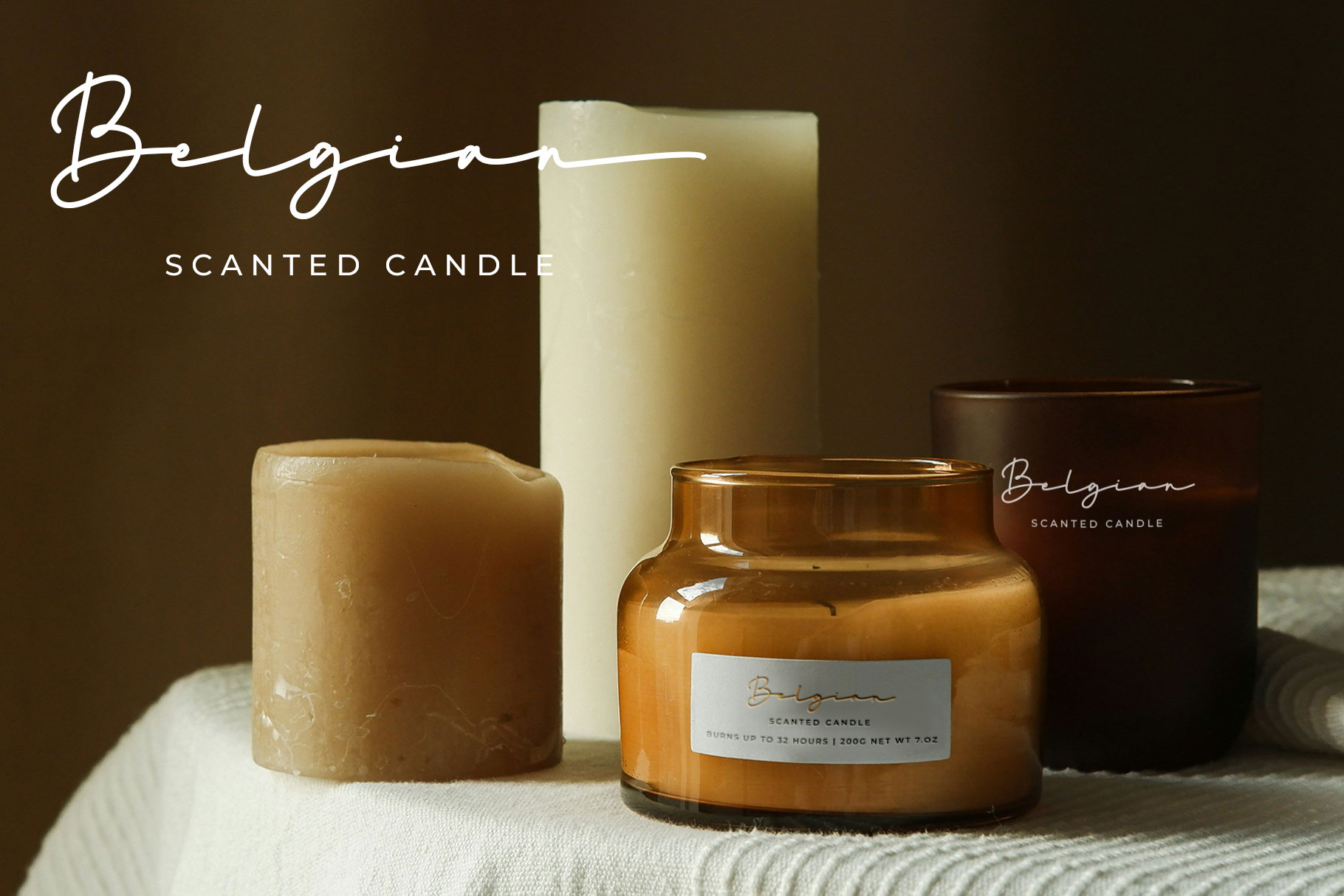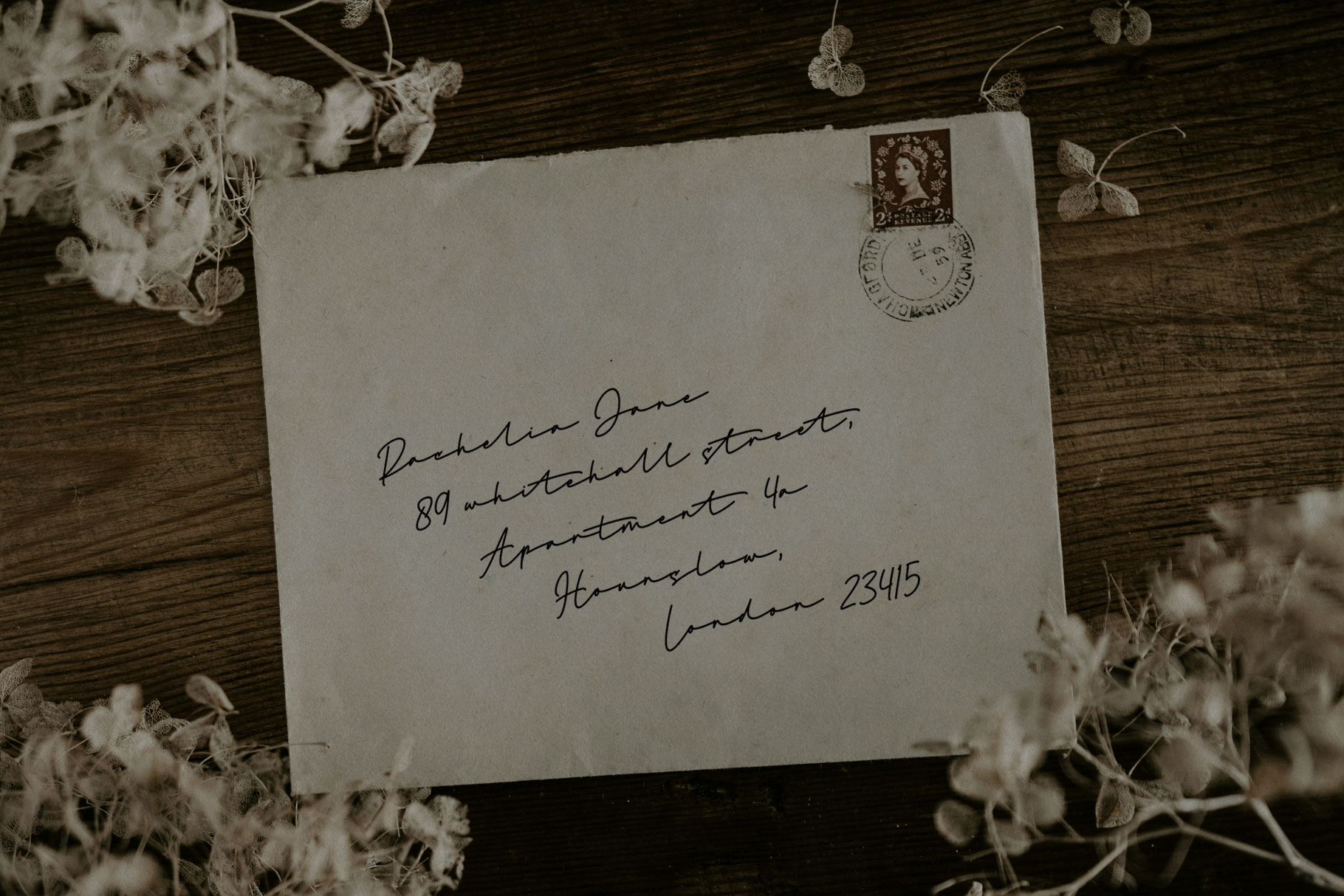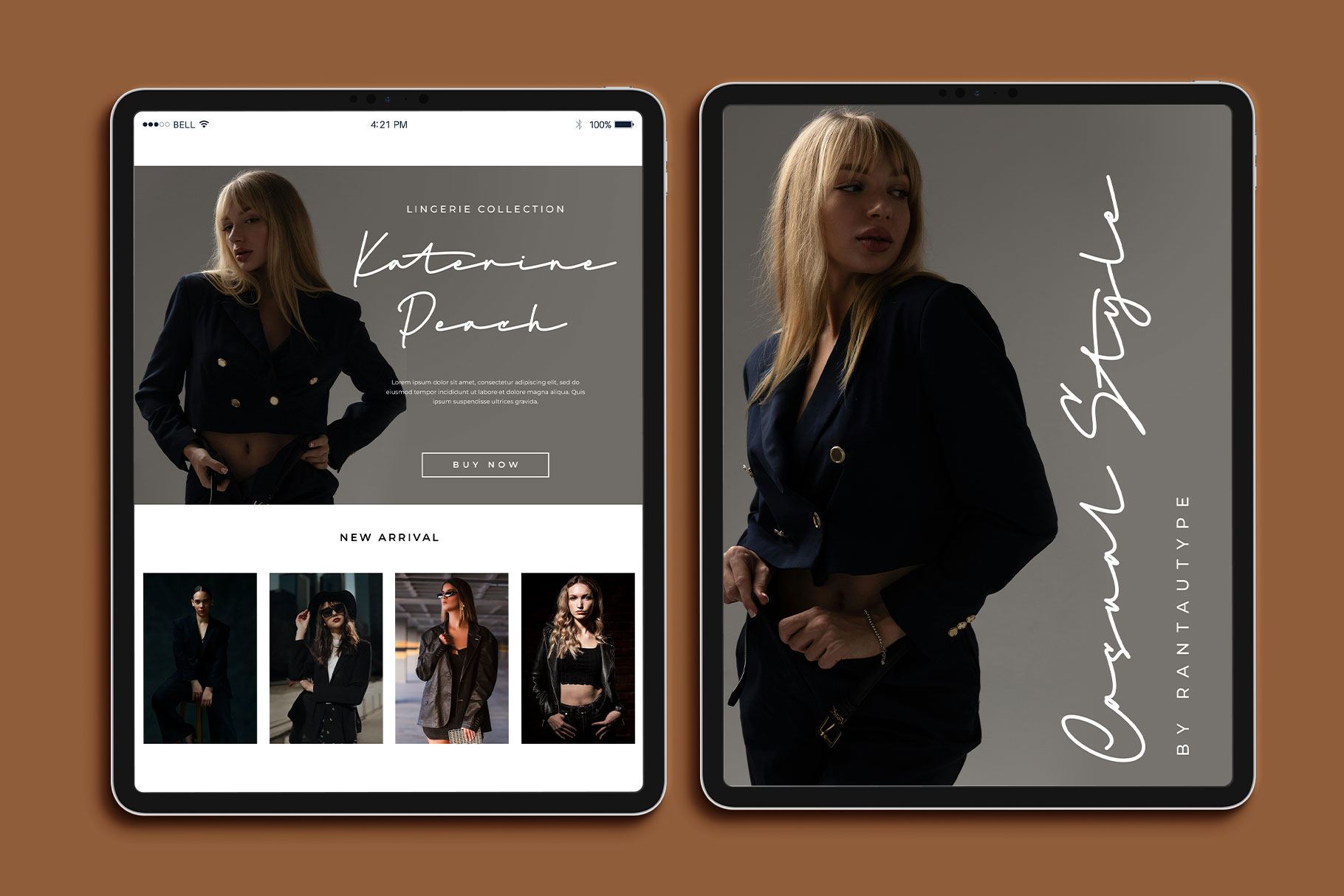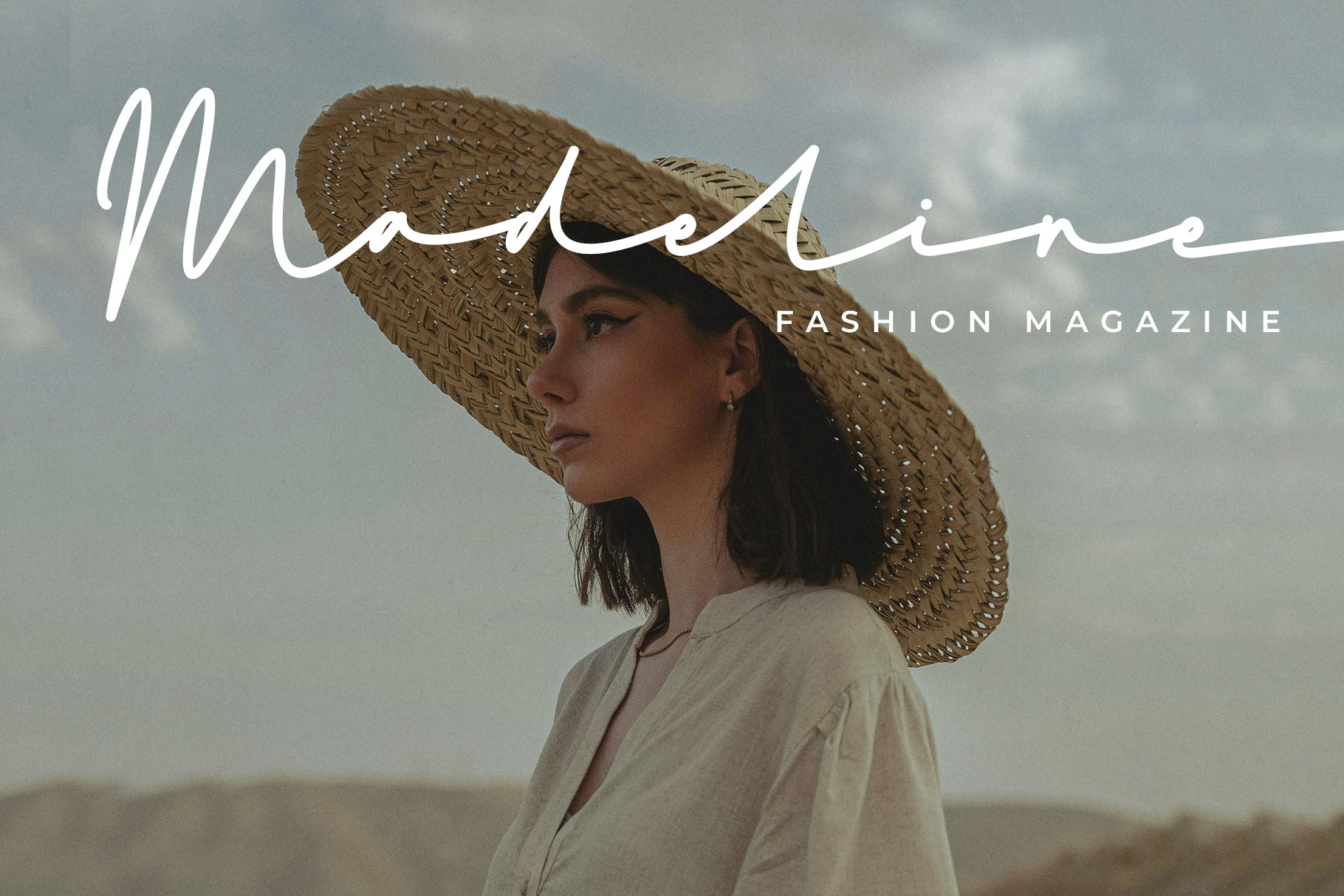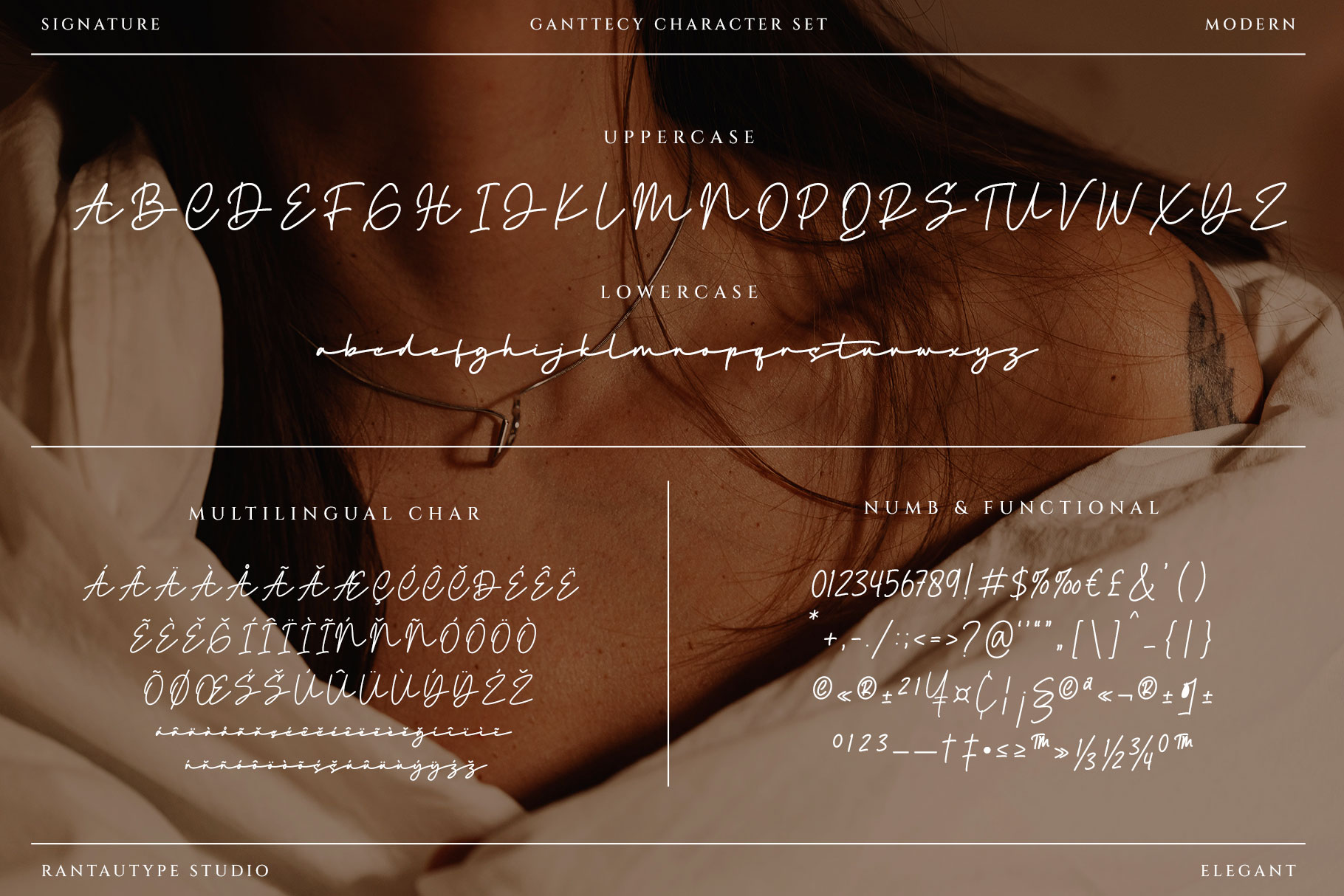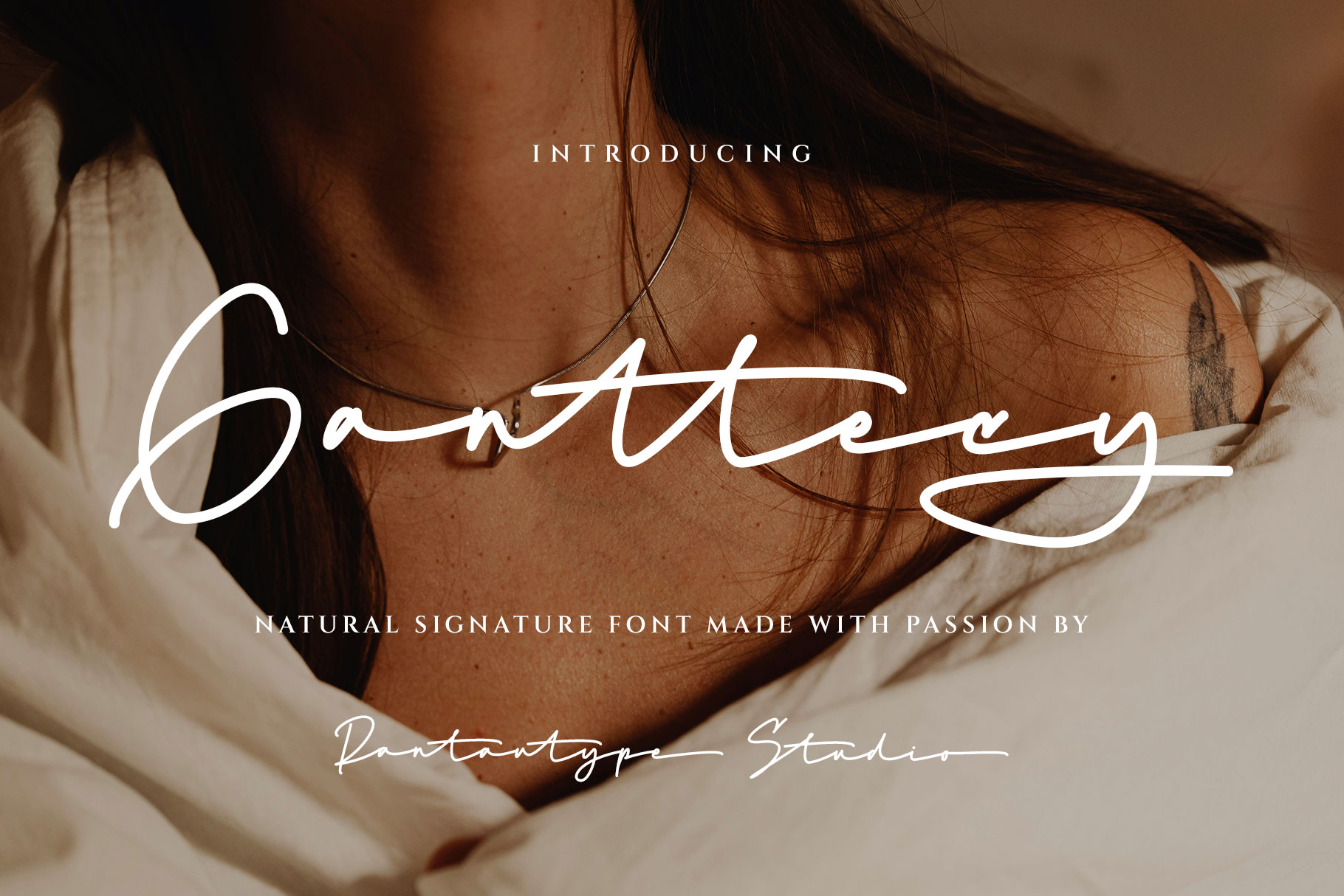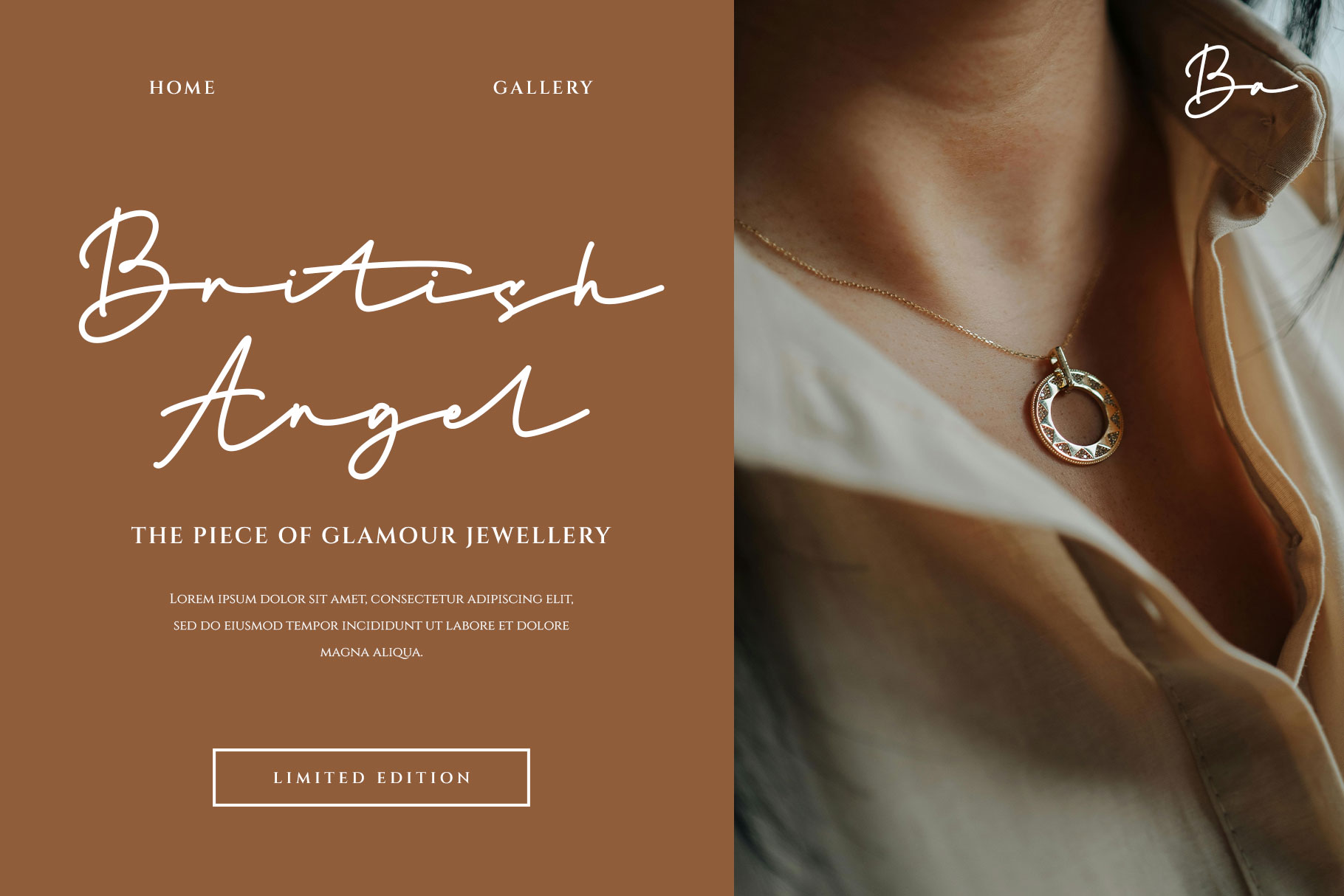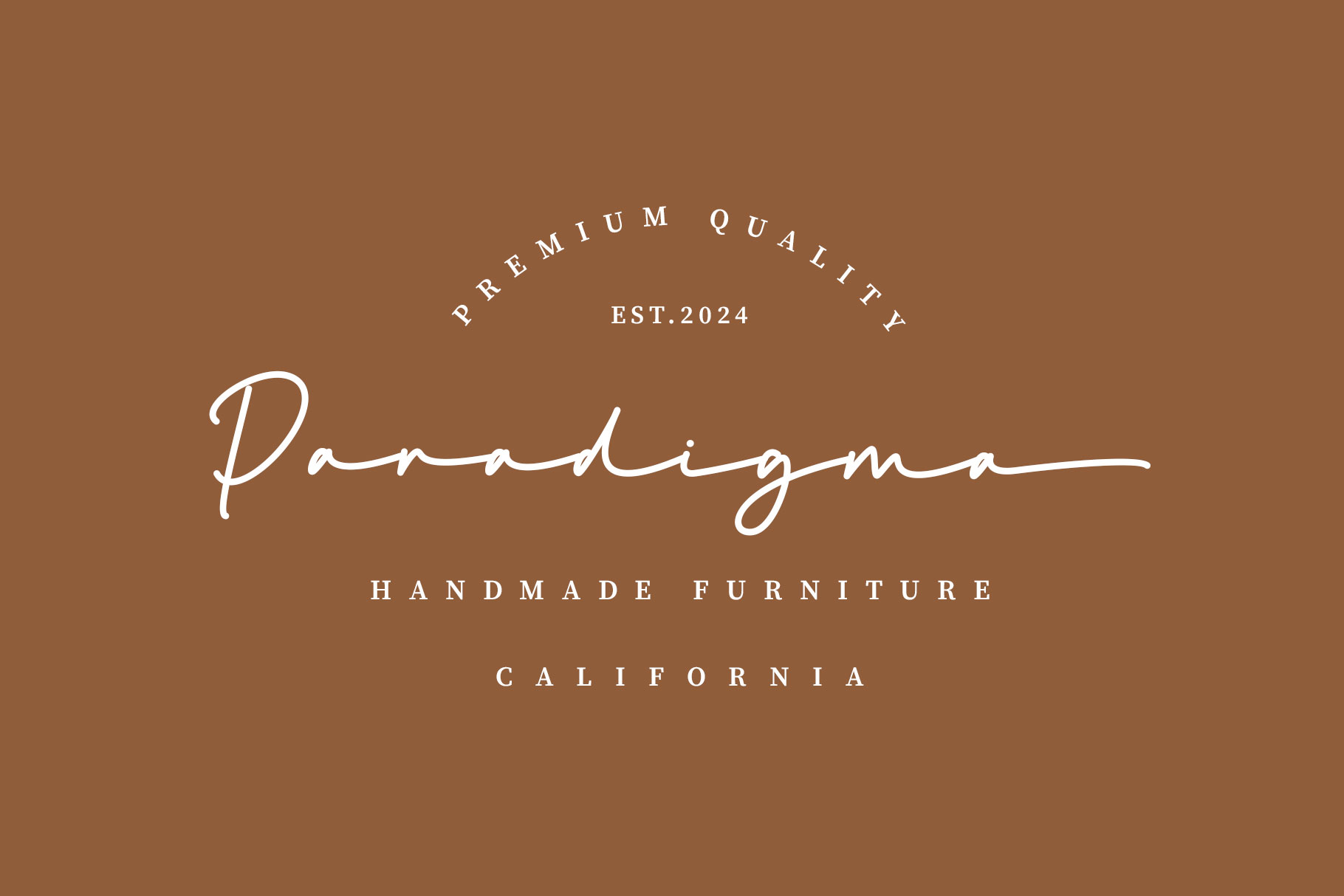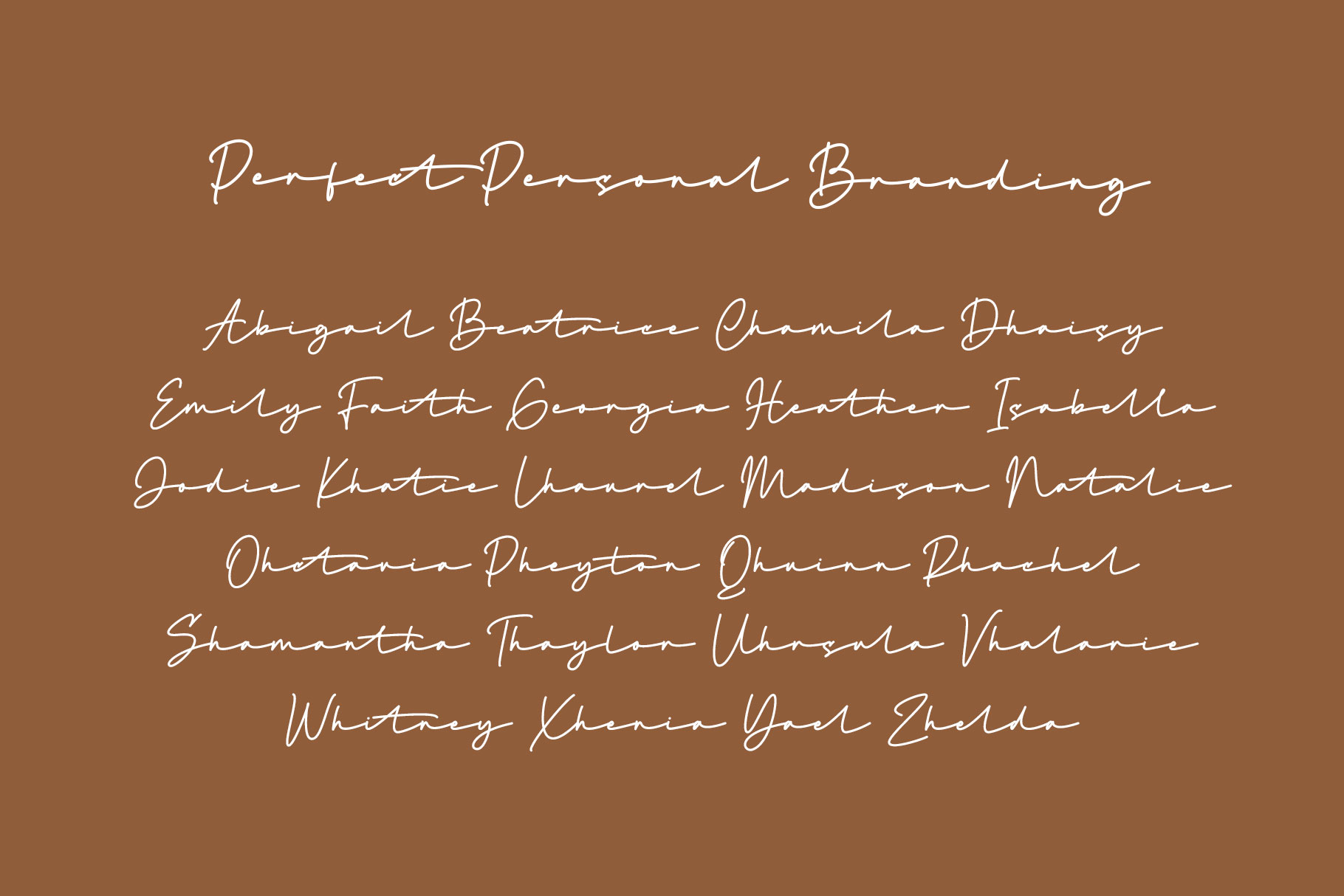
Ganttecy Signature Font
Ganttecy is signature font with stylish character and embrace of grace. Ganttecy bring elegant harmony of typography. Ganttecy is a perfect choice for any creative endeavor, creating elegant, modern, chic, lifestyle design such as logotype, title, cover, branding, invitations, wedding designs, display and magazine, social media posts, advertisements, printed quotes, product packaging, corporate brand, product designs, labels, photography, watermarks, special events and any other project with handwritten touch.